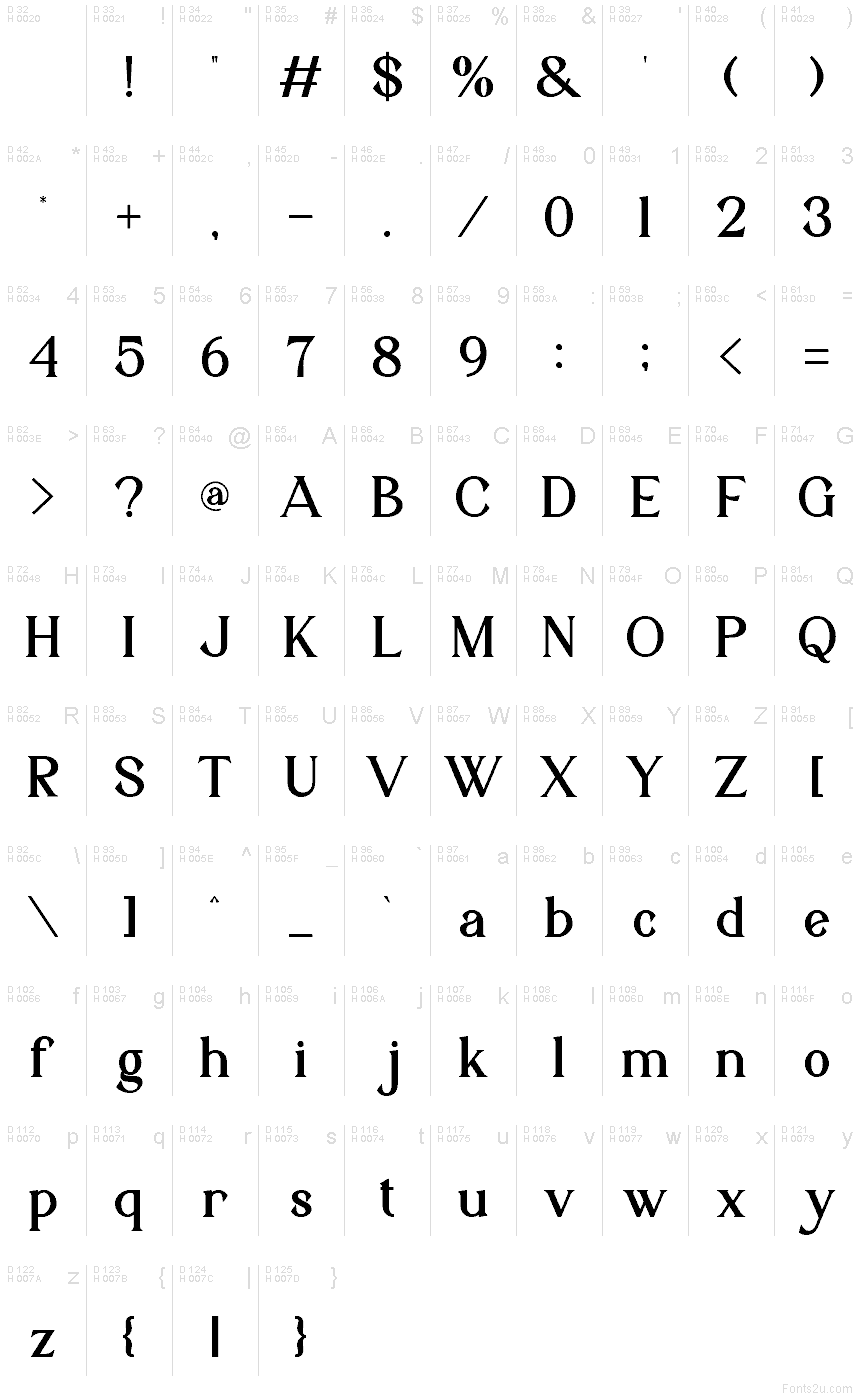
Bilova Regular
Bilova font by Ermedia Studio is a free decorative display serif font. It leans into voluptuous curves and razor-edged serifs, creating a delicious push-pull between soft, inky bowls and crisp cuts. The contrast is bold but controlled, giving headlines a sculpted presence without feeling fussy. Spacing is confident and rhythmic, so letters lock together with a luxe, glossy finish.
Using Bilova, you’ll get statement-making logos, beauty or fashion branding, wine labels, editorial headlines, event invitations, and high-impact posters that feel tailored and premium. This free font shines on short phrases and big sizes where its drama can breathe. Pair it with a clean, light sans for body copy, and let Bilova carry the spotlight.